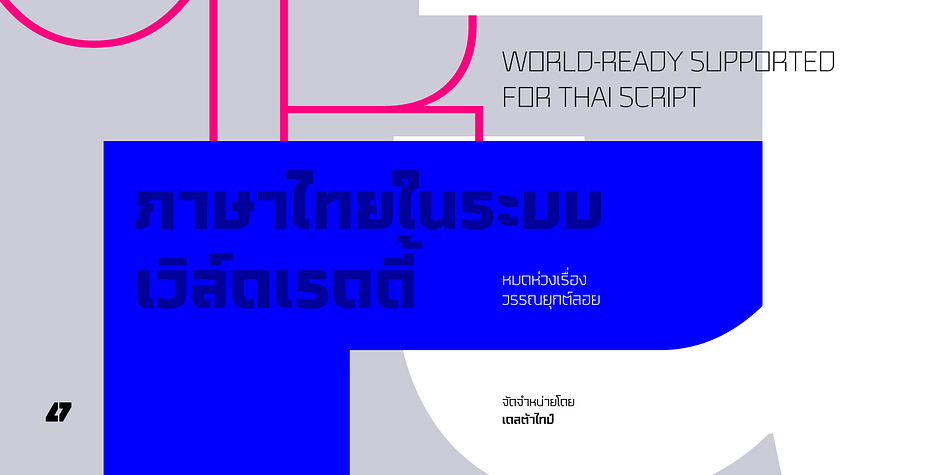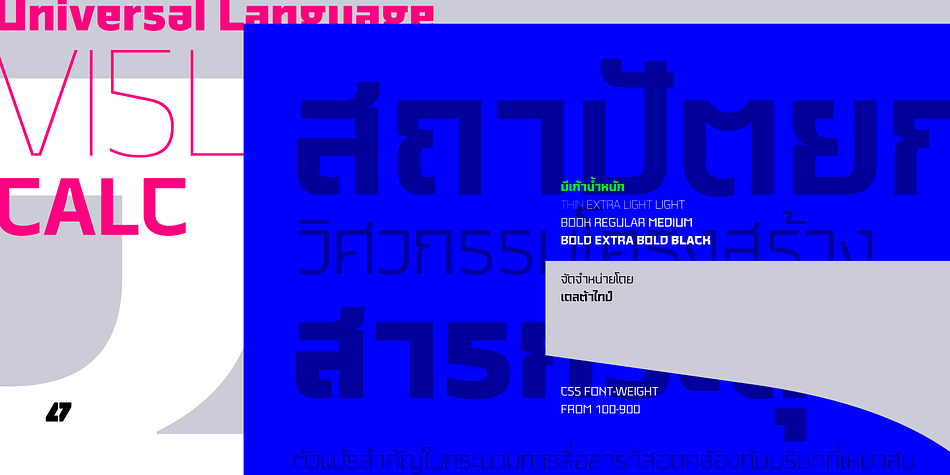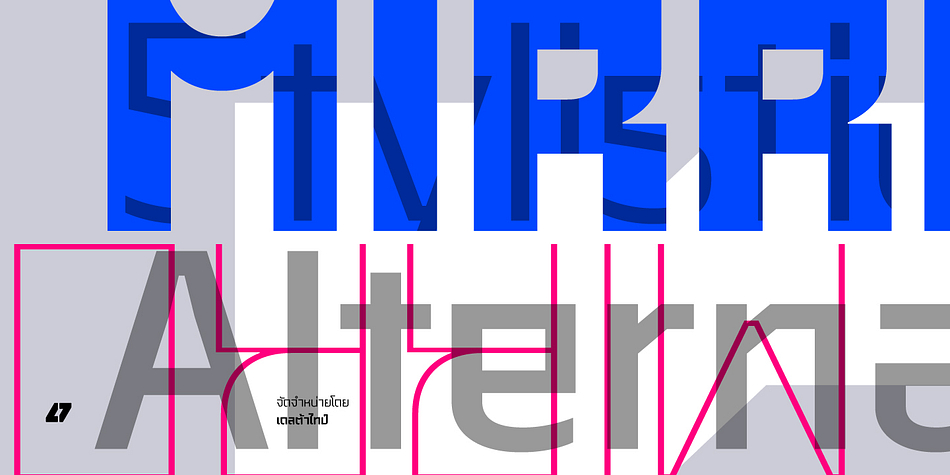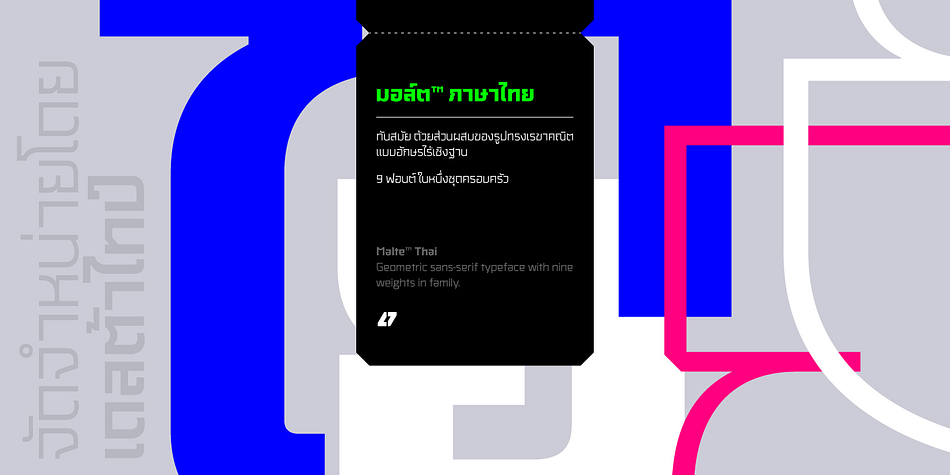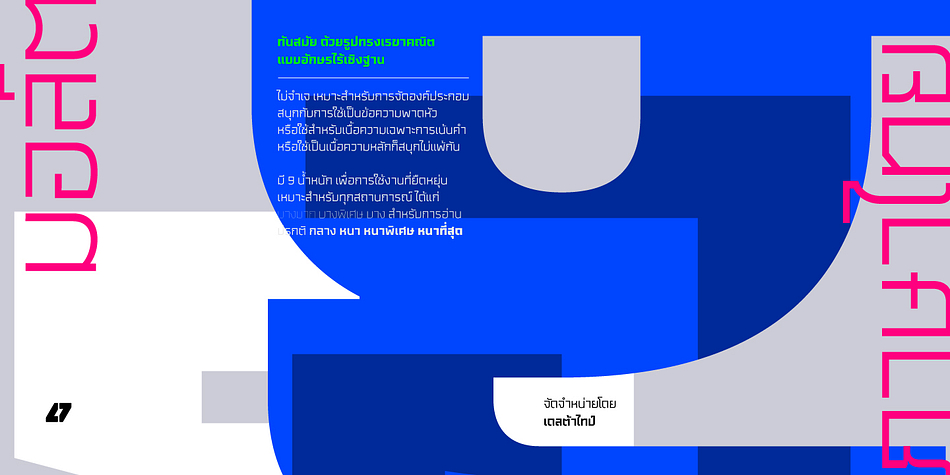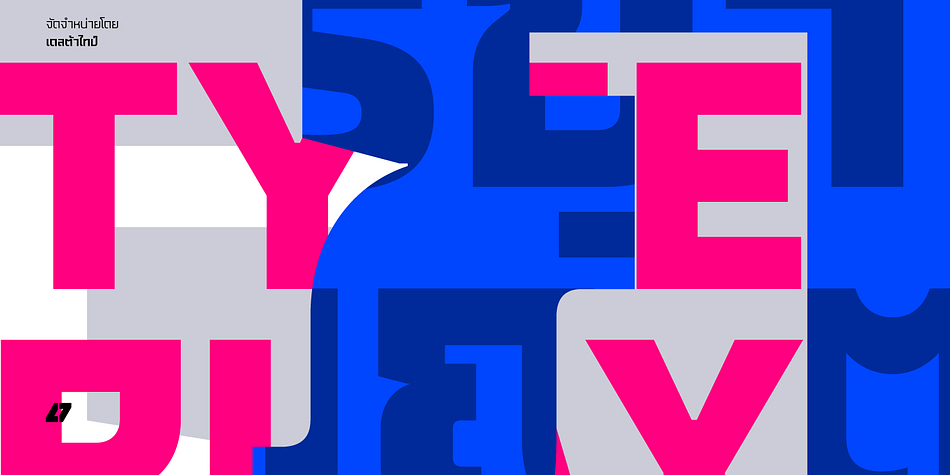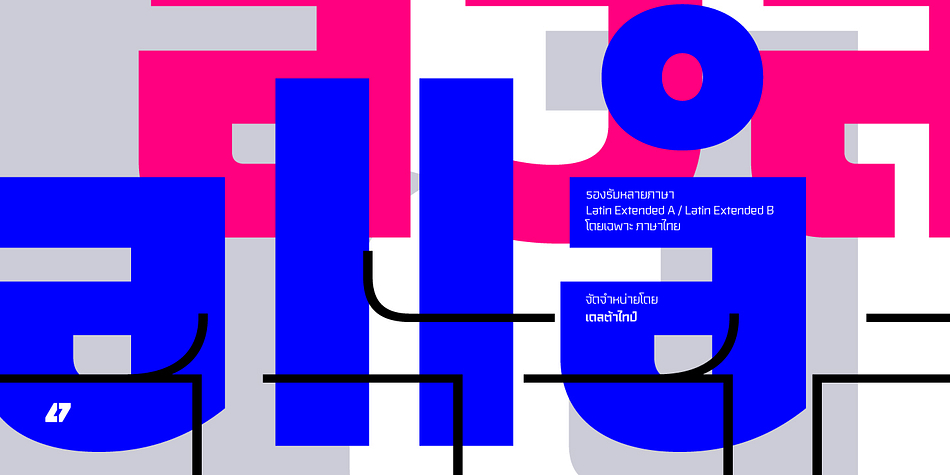
Designed by Phatcharaphat Chatthawatthanathon, Malte Thai is a sans serif font family. This typeface has nine styles and was published by Deltatype.
Malte Thai is a geometric sans-serif typeface, inspired from the modern age. Designed to use as type play, headline, quote and for composition. Malte come with nine weights that mappings to CSS font weights. Malte supported many languages as included extend latin glyphs. This package included Thai scripts.